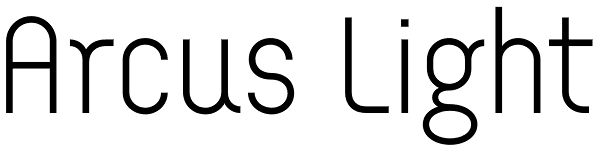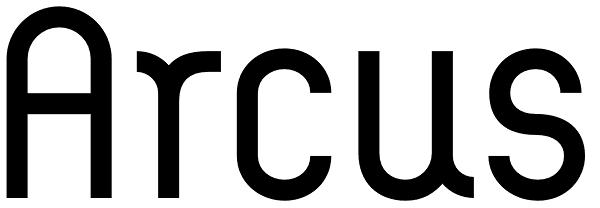
Arcus
Arcus OpenType is a geometrically constructed font. The grounding principle is the round curve. The homogeneous character of this font is guaranteed by using this principle not only in drawings of particular letters but in the shaping of diacritical...